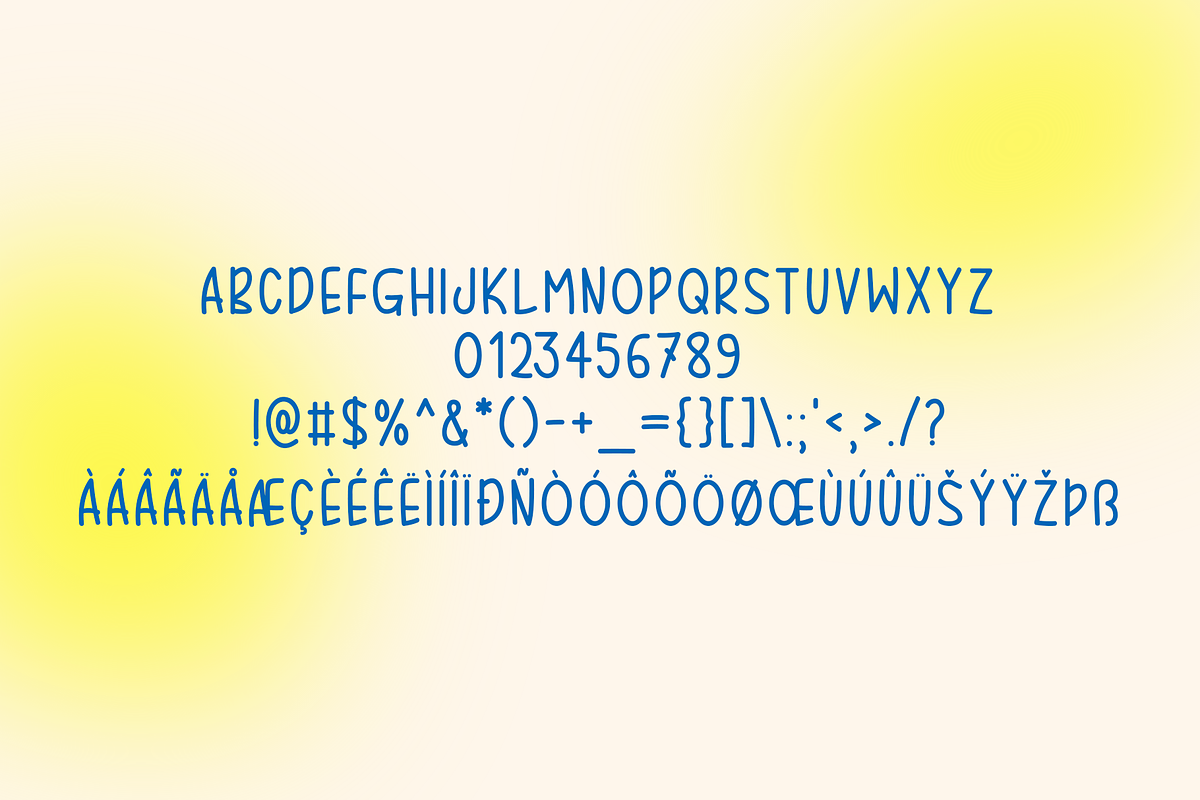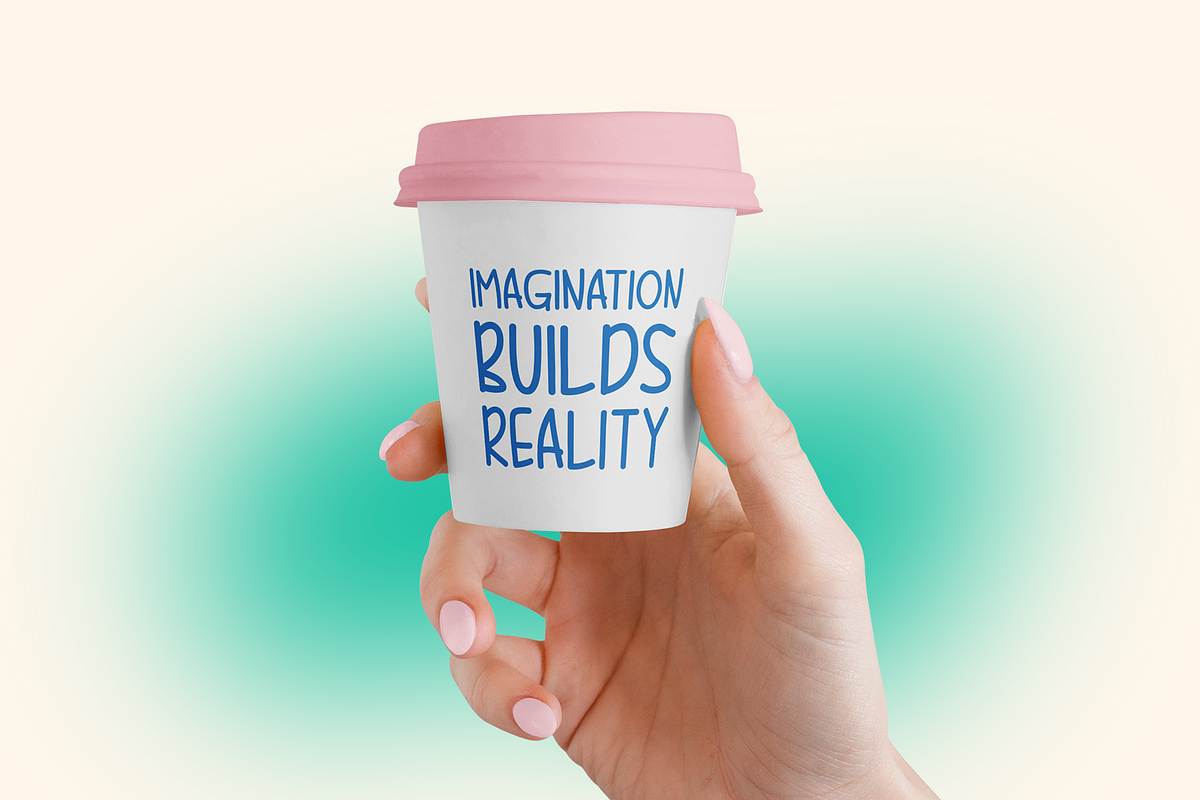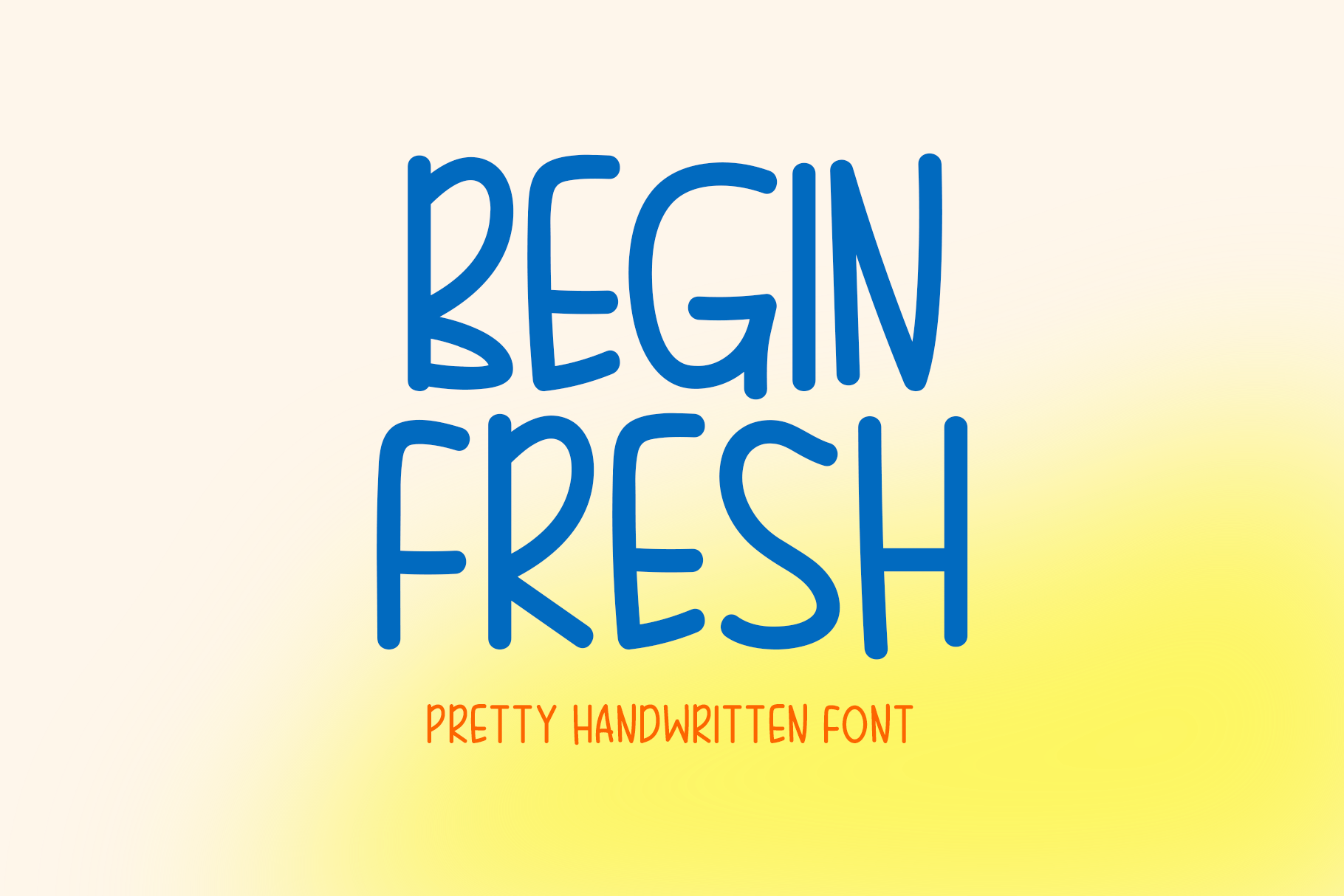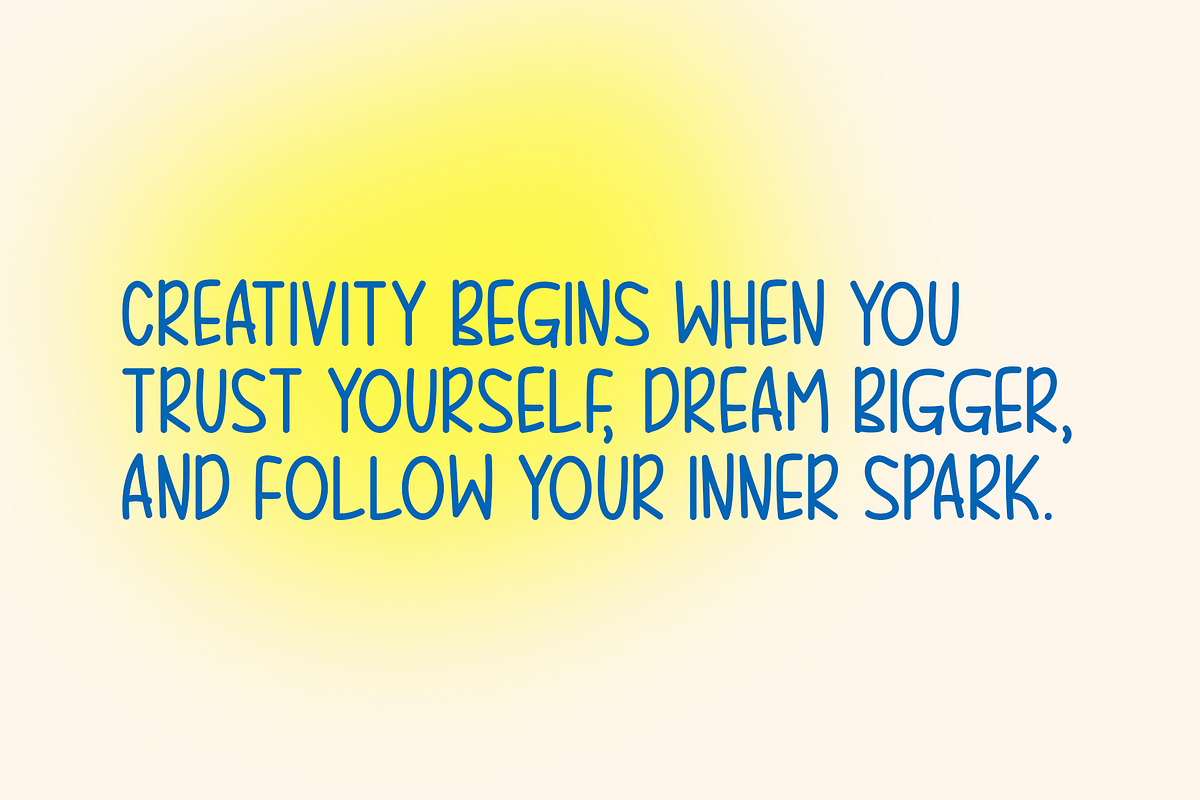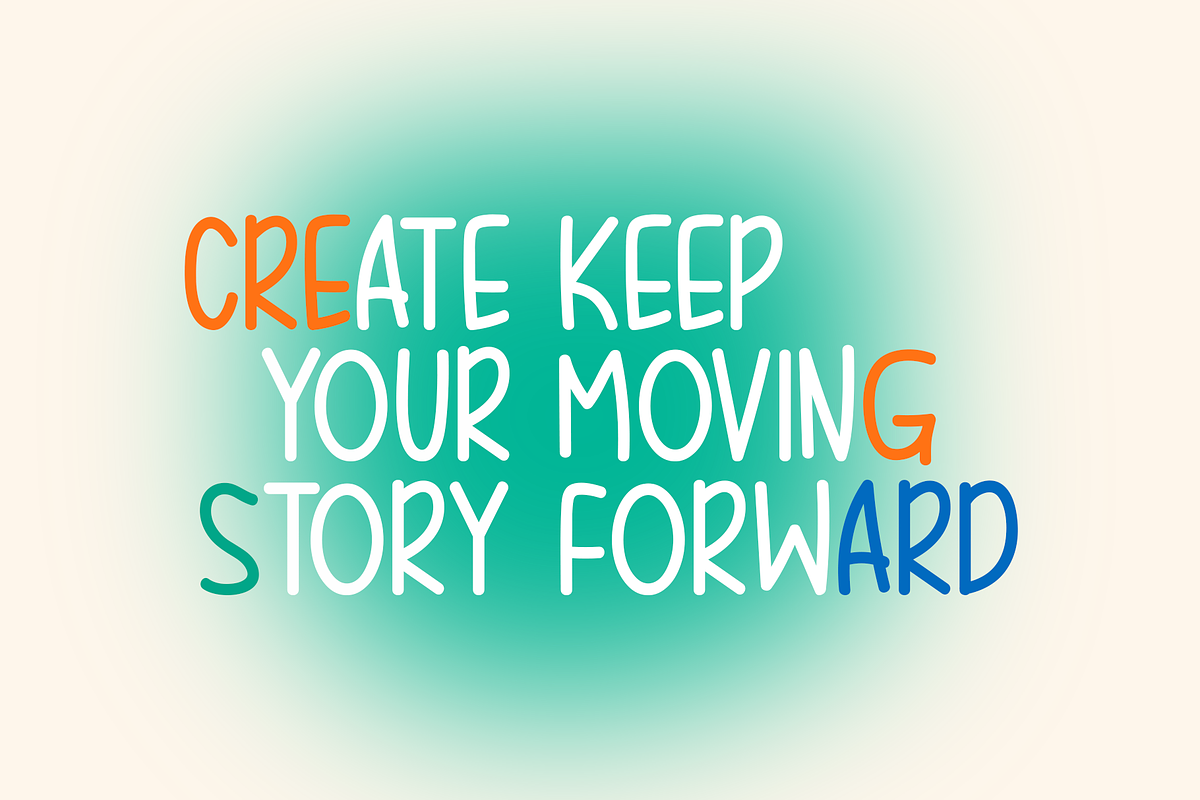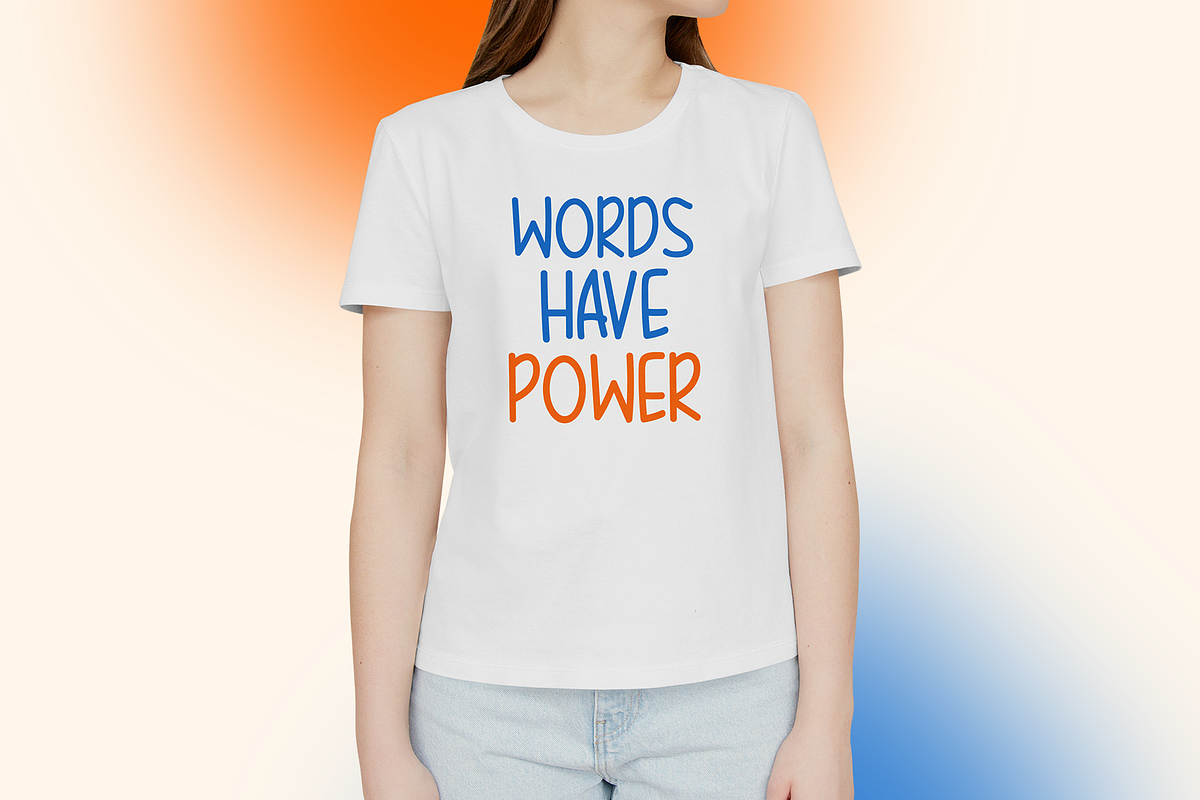
Begin Fresh Typeface
Introducing Begin Fresh!
Begin Fresh is a charming handwritten font that combines elegance with a playful, modern touch. Its flowing strokes and natural style make it an excellent choice for a wide variety of projects, including stationery, logos, apparel, posters, invitations, music covers, and digital graphics. Perfect for adding a personal and creative feel, Begin Fresh brings warmth and character to both print and online designs, making every project stand out with a fresh, handcrafted look.
Includes a range of multilingual support